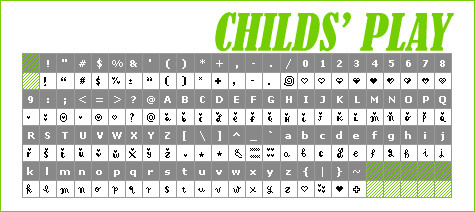
Enjoy. Like I wrote in the preview, this is more to prove a point to myself than anything else.
Thanks for making this nice font. And for anyone using it: I find it looks best when used at 10px.
I adore this font, it's really cute and swirly ^^
That takes skill! In one of my classes we got to design a pixel font, I tried to do a script but didn't have the patience! This is so awesome! <3
personally, I'm finding the lower-case letters a bit hard to read, but I love the look of the numbers so I'm gunna say thanks for the nice font
wow thats a great effort for the way the site is! I had a go and was driving me nuts that you have to create square by square!
Ah, the beauty of pixel work.
Excellent, and I love that it's reg weight, not too dark like Bangalore, plz make more, even serif pixel fonts. Great talent, which I'm going to explore!
I'm really hoping to get further into type in the next few years as I'll be attending a new school in Fall 2006. I've only taken a few design classes, but apparently it's been enough to get me going.
i guess the font looks cutsie!
Thanks! I'm not thrilled with it, but hey, you can make a script out of pixels. Makes me smiley.